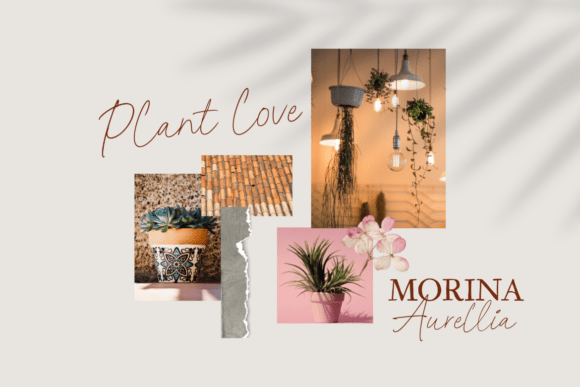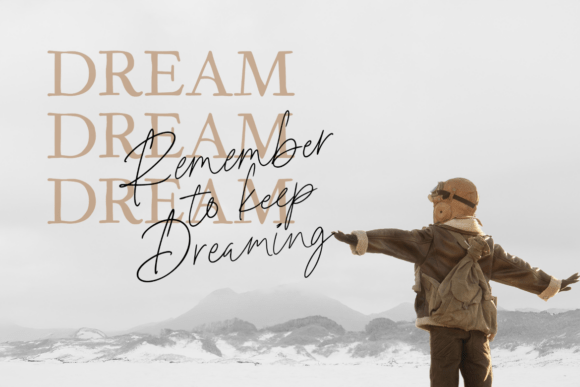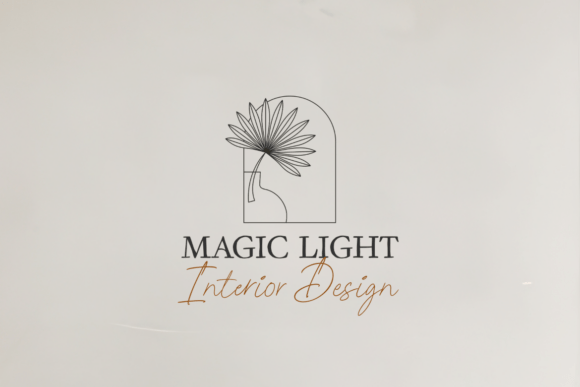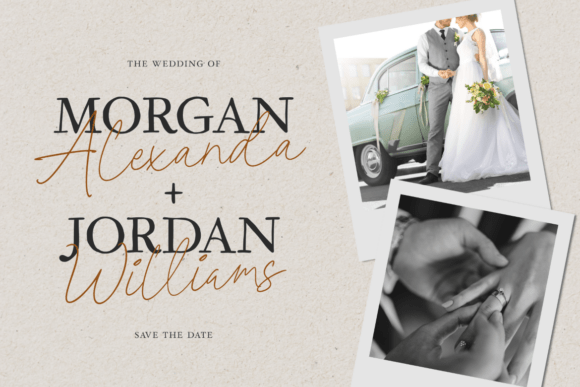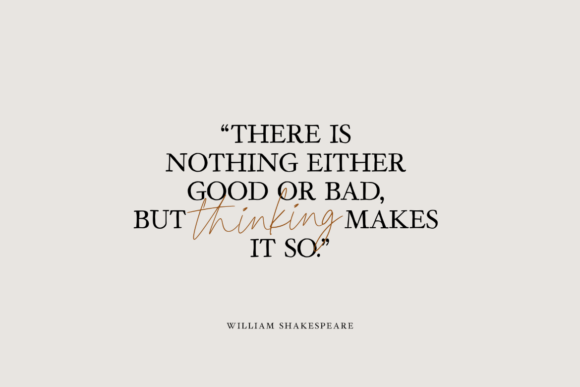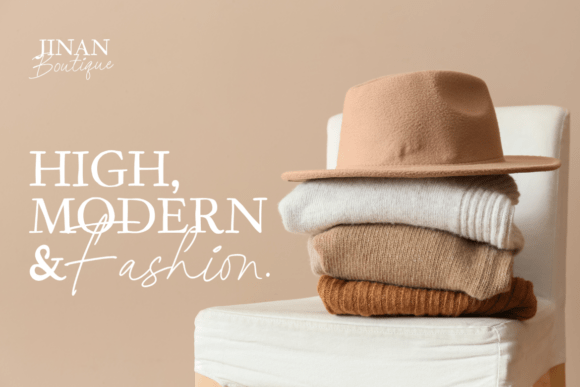
A Timeless Duo for the Ages: Unveiling Belrose Cavellier
Have you ever stumbled upon an old, leather-bound book in a quaint bookstore, and as you delicately open its yellowed pages, the words transport you to a bygone era? The feel of the paper, the smell of aged ink, and the elegant script that dances across the page all combine to evoke a sense of nostalgia and romance. This is the kind of feeling that Belrose Cavellier Duo Font aims to evoke in your designs.
This refined font duo seamlessly blends soft artistic beauty with strong, timeless character, making it the perfect choice for branding, logo design, and editorial layouts. Whether you’re a seasoned designer or just starting out, Belrose Cavellier offers a versatile and premium typographic experience that’s sure to elevate your creative projects.
Belrose Cavellier Duo Font Key Features
- Font Family: Belrose Cavellier Duo, a beautiful script font with elegant and modern design.
- Unique Characteristics: Features a mix of modern and vintage elements, with swashes and flourishes that add a touch of sophistication and elegance.
Designer Review: Belrose Cavellier Duo Font
The Belrose Cavellier Duo Font is a unique and elegant serif font that caught my eye with its intricate details and classic feel. ✨ One of the standout features of this font is its excellent legibility, making it perfect for long-form content and formal documents. The font also has a high level of flexibility, working well in a variety of contexts from body text to headings.
However, there are a few areas where the font falls short. ⚠️ Firstly, the font’s complex design can make it difficult to pair with other fonts, limiting its versatility in certain designs. Additionally, the font’s large file size can slow down loading times, which may be a concern for web designers. Finally, the font’s subtle italic styling can sometimes get lost in smaller text sizes.
Here are some specific features of the Belrose Cavellier Duo Font:
- Excellent legibility and readability
- Highly flexible and adaptable
- Classic and elegant feel
Overall, the Belrose Cavellier Duo Font is a beautiful and elegant choice for designers looking to add a touch of sophistication to their projects. While it has some limitations, its strengths make it a worthwhile consideration for formal and professional designs.
Use Belrose Cavellier Duo Font for titles and headings to add a touch of elegance and sophistication to your designs.
Belrose Cavellier Duo Font is perfect for:
Business cards and marketing materials